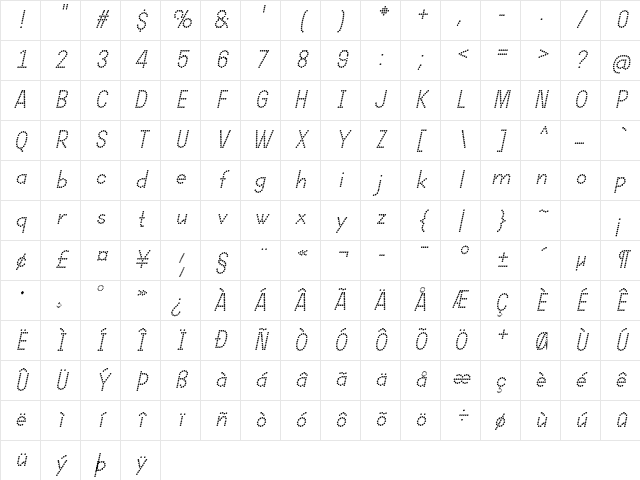
DOTCIRFUL Italic Free Font
DOTCIRFUL Italic
Designer: Situjuh Nazara
Design Context for DOTCIRFUL
DOTCIRFUL is rooted in pixel-grid construction, making it a natural fit for game UI, retro computing aesthetics, and digital nostalgia projects. The slanted form adds forward momentum and visual energy.